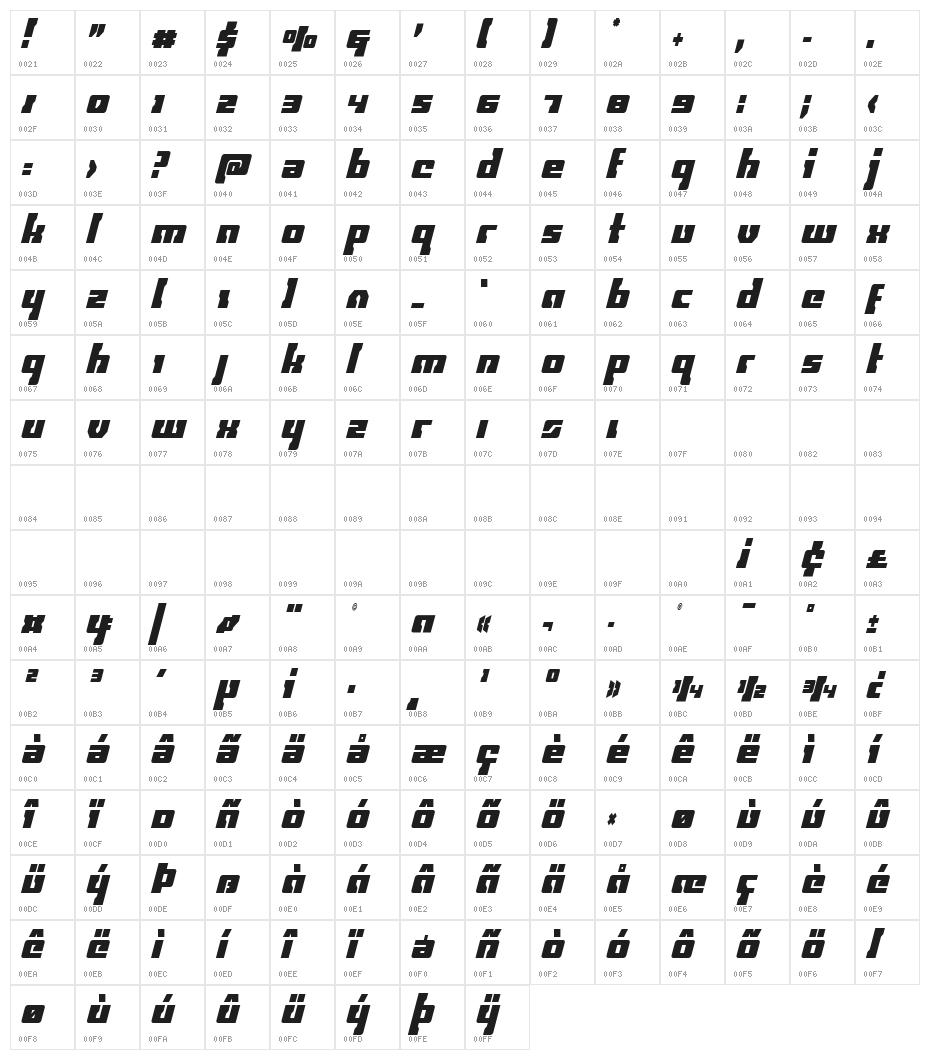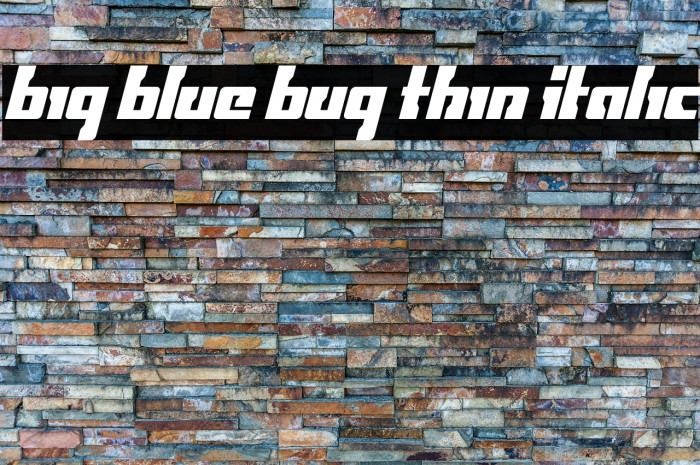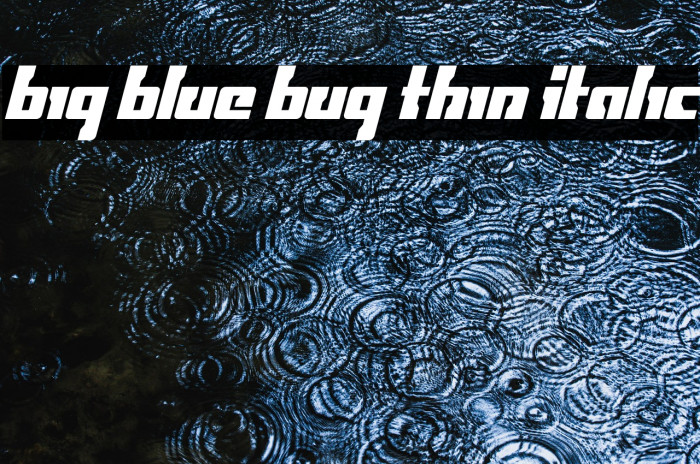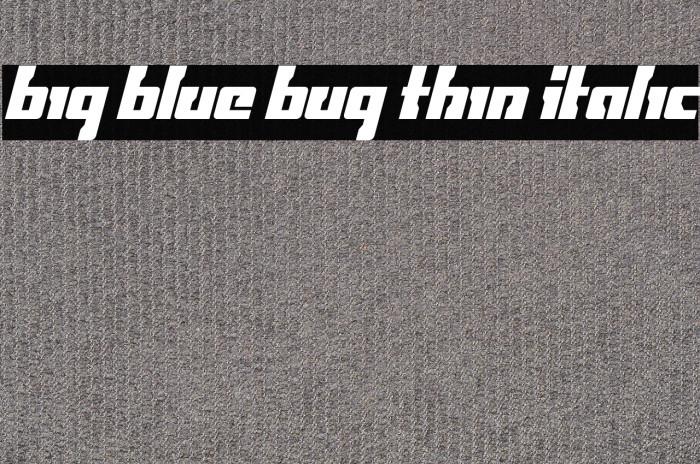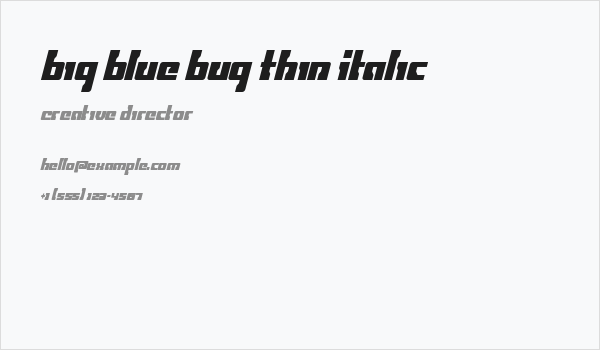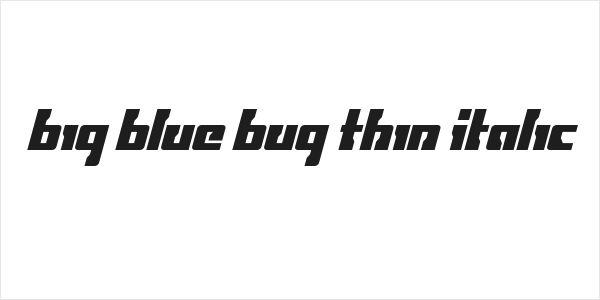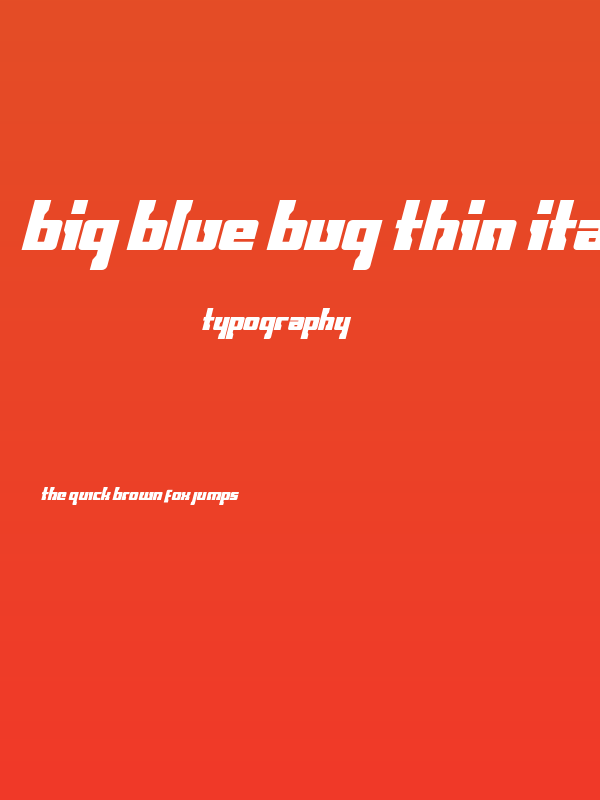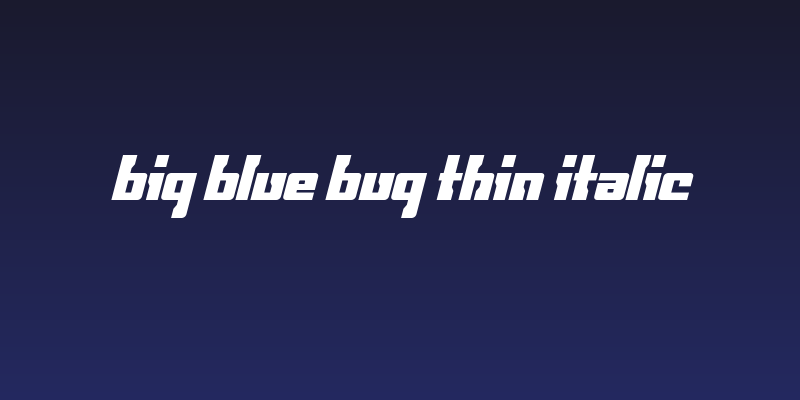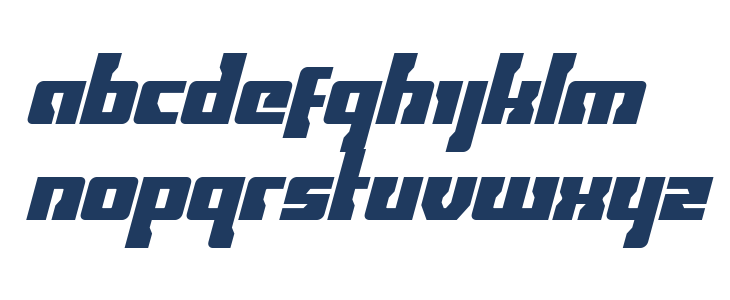
Big Blue Bug Thin Italic Font
Big Blue Bug Thin Italic Description
This font features a bold, angular design with a futuristic and dynamic feel. The characters are italicized, adding a sense of motion and energy. Each letter is constructed with sharp edges and a consistent stroke width, giving it a uniform appearance. The font is highly stylized, with a distinct geometric influence that makes it stand out. It is suitable for projects that require a modern and edgy look, such as technology branding, sports team logos, or video game titles. The numbers and special characters maintain the same bold and angular style, ensuring consistency across all text elements.
| Use Case | Logos, Headlines |
| Proposed Projects | Ideal for technology branding, sports logos, and video game titles. |